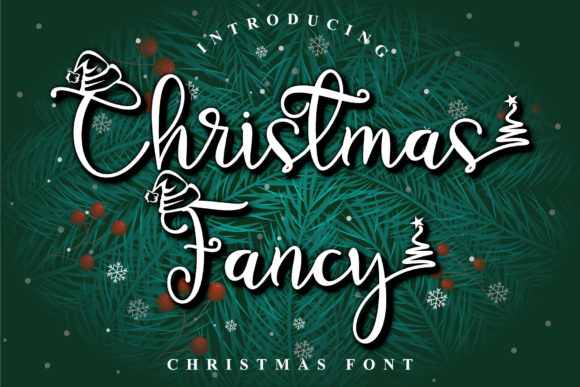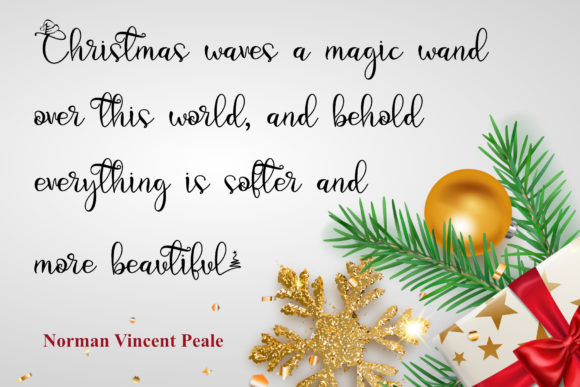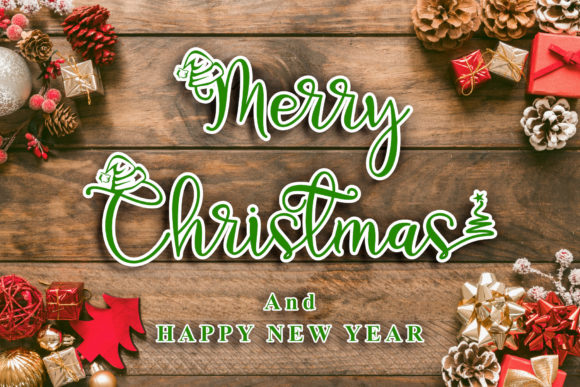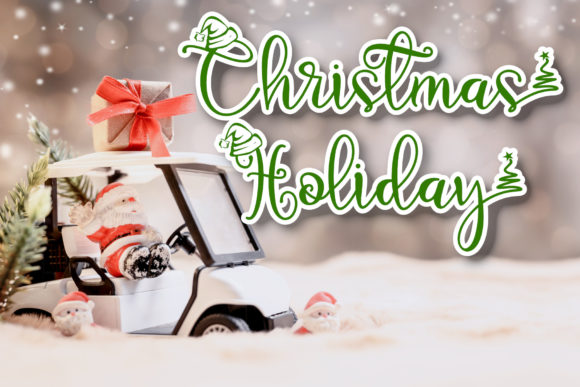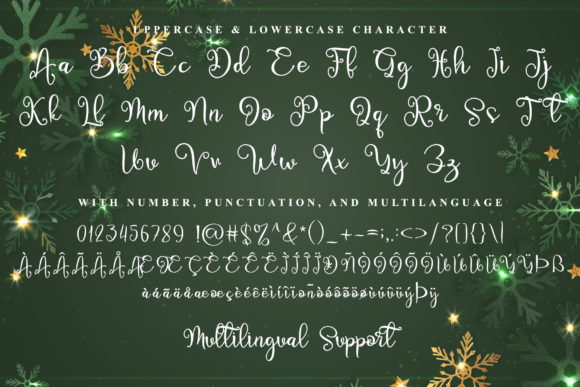
About Christmas Fancy Font
Christmas Fancy is a lovely script font featuring charming little festive accents. Add this font to your most creative ideas, and notice how it makes them stand out! Christmas Fancy is PUA encoded which means you can access all of the glyphs and swashes with ease!